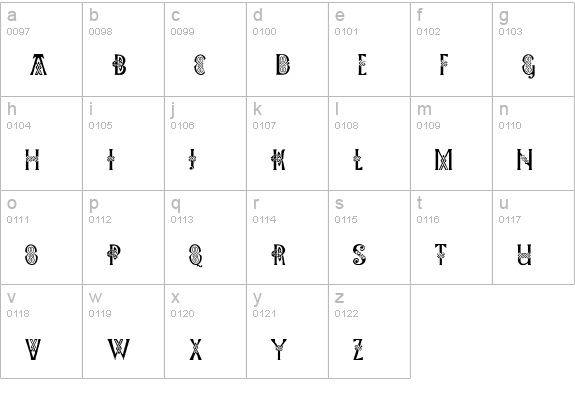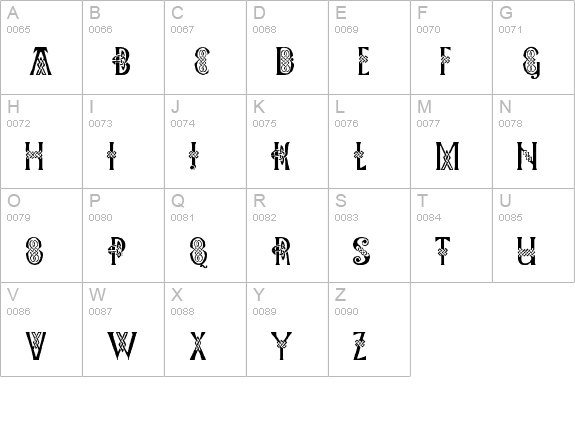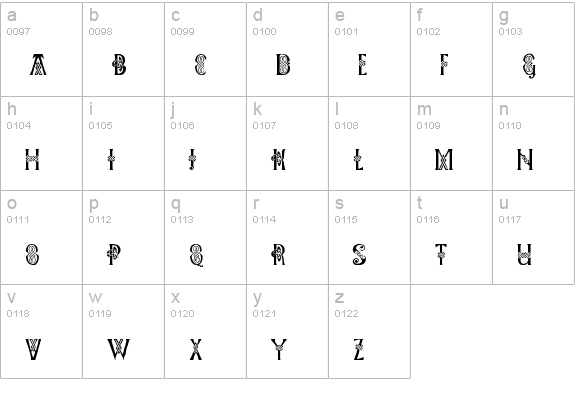
Pee's Celtic Plain Font Details
Introducing Pee's Celtic Plain font, a captivating and versatile typeface that effortlessly captures the essence of Celtic heritage and tradition. This font exudes an air of mysticism and elegance, making it the perfect choice for any project that seeks to embrace the rich cultural legacy of the Celts. Pee's Celtic Plain font is meticulously crafted with intricate details and graceful curves, showcasing the artist's deep appreciation for the Celtic artistry. Each character is carefully designed, blending the ancient Celtic motifs with a contemporary touch, resulting in a truly unique and visually stunning typeface. With its wide range of glyphs and characters, Pee's Celtic Plain font offers limitless possibilities for creative expression. Whether you're designing a logo, crafting a poster, or creating a website, this font will add a touch of Celtic charm and authenticity to your work. One of the most remarkable aspects of Pee's Celtic Plain font is that it is freely available to download at FontsMarket.com. This means that you can easily access and utilize this exceptional font without any cost. With its high-quality design and versatility, Pee's Celtic Plain font is truly a treasure trove for designers and typographers alike. So, why wait? Embrace the enchanting allure of Celtic culture and elevate your designs with Pee's Celtic Plain font. Download it for free at FontsMarket.com and unlock a world of endless possibilities for your creative endeavors.